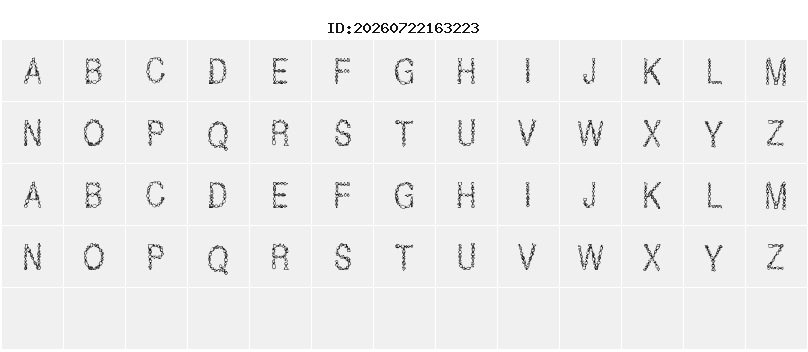
• Font Name: Jewels
• Designer: Steve Cloutier
• Manufacturer: CloutierFontes
• Description: jewelry Regular is a font by CloutierFontes, designed by Steve Cloutier in 2012.
Jewels.ttf is a modern, elegant sans-serif font designed for ultimate readability and visual harmony. Perfect for branding, headlines, web design, and print materials.